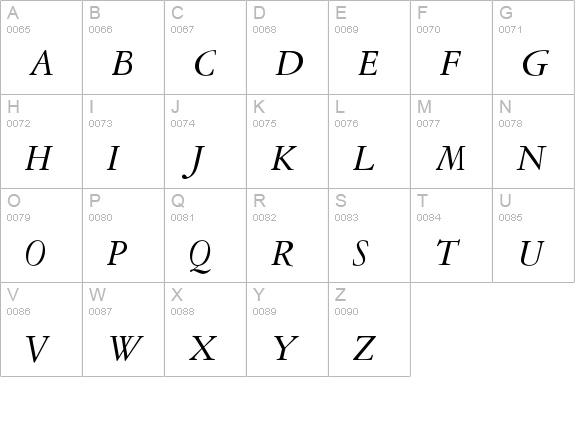
Garamond 3 Italic Old Style Figures is a distinctive, italic variant in the Garamond typeface family \xE2\x80\x94 well suited to design and typography projects.
Garamond 3 Italic Old Style Figures font exudes elegance and sophistication with its timeless design. The graceful italics and classic old-style figures add a touch of refinement to any project, making it perfect for formal documents, invitations, and editorial content. The flowing curves and delicate serifs of this font create a sense of traditional beauty that is sure to captivate readers. Best of all, Garamond 3 Italic Old Style Figures font is available for free download at FontsMarket.com. This means that you can enhance your designs with this exquisite typeface without any cost, making it an excellent choice for both personal and commercial projects. Don't miss out on the opportunity to elevate your typography with the stunning Garamond 3 Italic Old Style Figures font, now just a click away at FontsMarket.com.